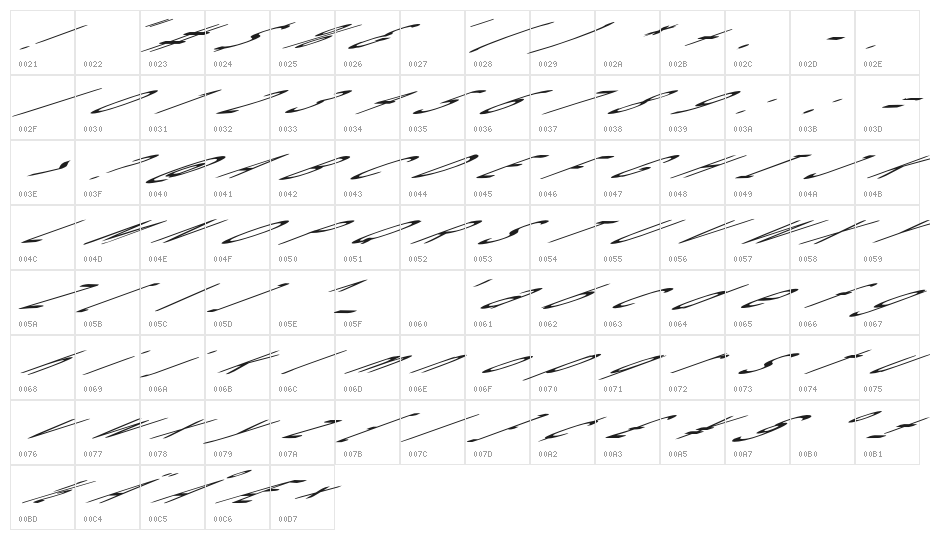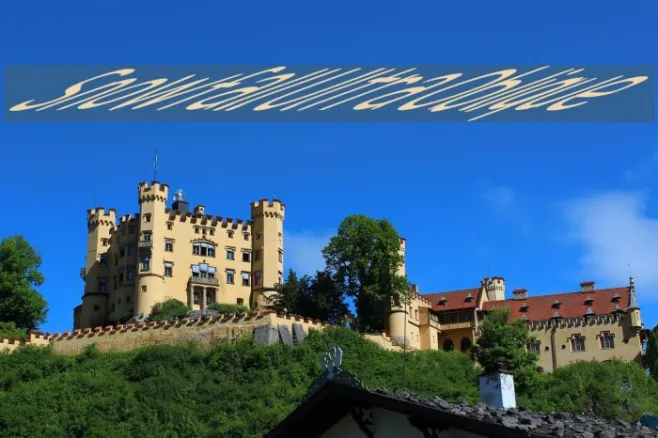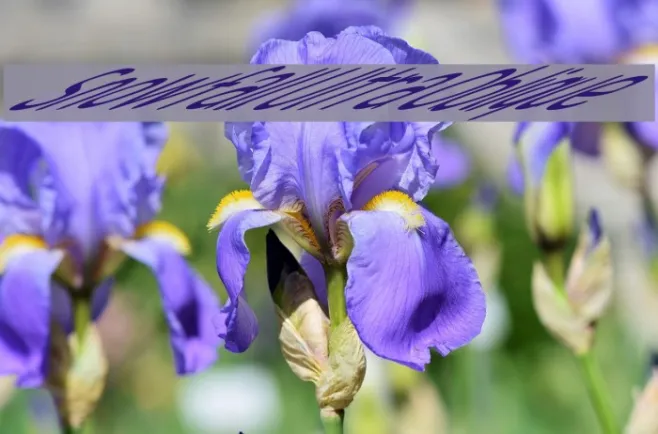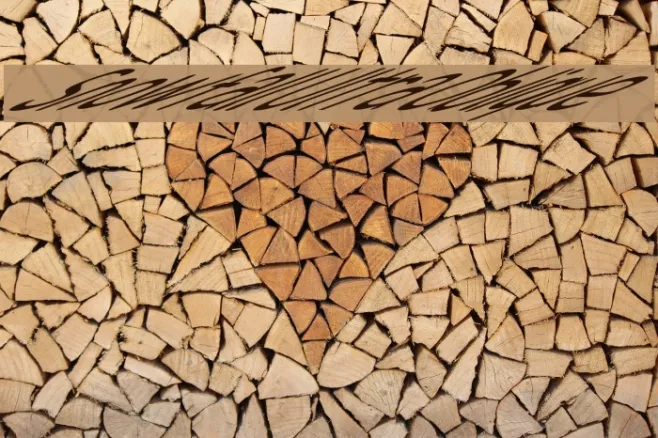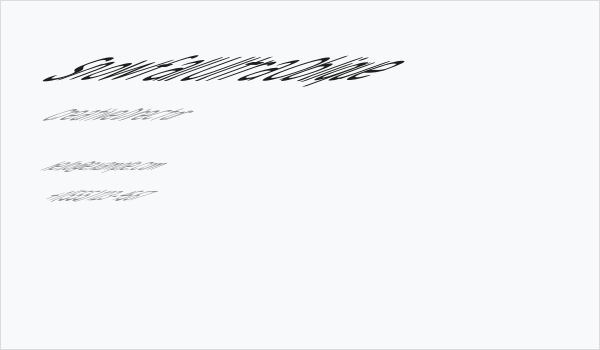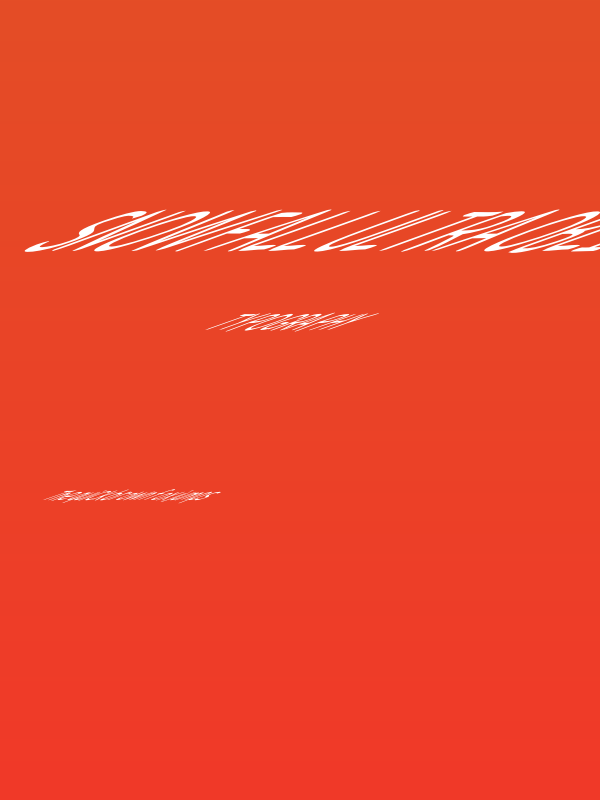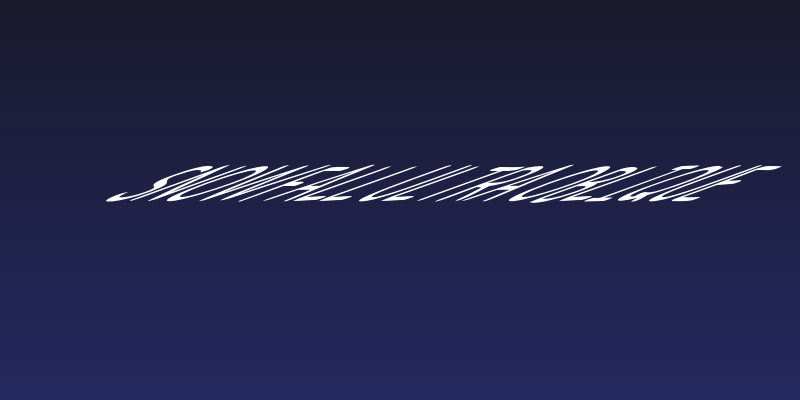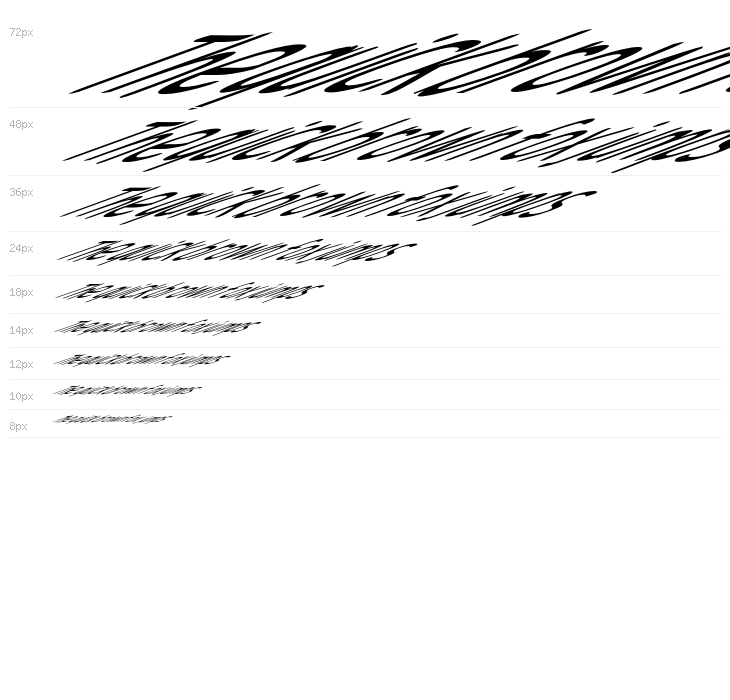
Snowfall Ultra Oblique Font
Snowfall Ultra Oblique Description
This font exhibits a dynamic and energetic style with a pronounced oblique slant, giving it a sense of motion and speed. The characters are bold and feature sharp, angular strokes that create a striking visual impact. The design is highly stylized, with exaggerated forms and a sense of fluidity that suggests movement. The uppercase and lowercase letters maintain a consistent slant, enhancing the overall cohesiveness of the typeface. The numbers and special characters follow the same design principles, ensuring uniformity across all elements. This font is ideal for projects that require a bold, attention-grabbing typeface with a modern and edgy aesthetic.
Proposed ProjectsIdeal for sports branding, dynamic posters, edgy advertisements, and modern digital media.